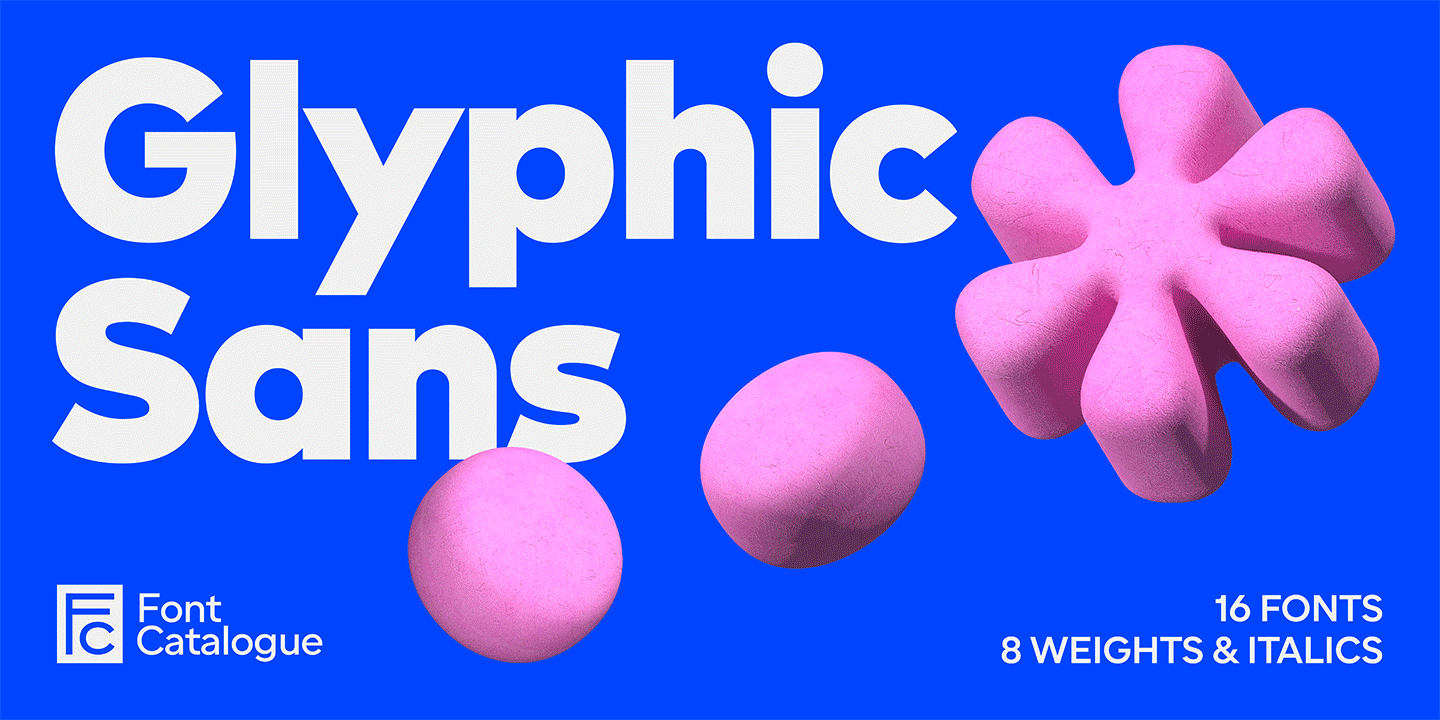
Glyphic Sans is a sans serif that lives at the intersection of technical and human. Built on geometric proportions, this typeface incorporates subtle humanist inflections that give it personality without sacrificing clarity—especially visible in the extended strokes and elegant diagonals of K, Q, y, k, and other distinctive characters. These subtle refinements make it more striking, yet always contained.
With eight weights—including a particularly extrabold—and refined details and balanced structure, it's the natural choice for fintechs, banking brands, and technology companies looking to project trust, innovation, and sophistication. From logos to digital interfaces, Glyphic Sans communicates professionalism with a distinctive touch.
Eutron Typeface is a sharp, expressive display font crafted for designers who seek a bold identity in every layout. With its sculpted curves and refined contrast, Eutron brings a modern yet timeless energy to titles, posters, branding, and editorial work. Available in Regular and Expanded, each style delivers a distinct presence—whether you want a tight, authoritative feel or a wider, more dramatic composition. Every character is shaped with precision, making Eutron a standout choice for impactful visual storytelling. Perfect for creative projects that demand individuality, strength, and artistic flair. 2 fonts for $25 | |